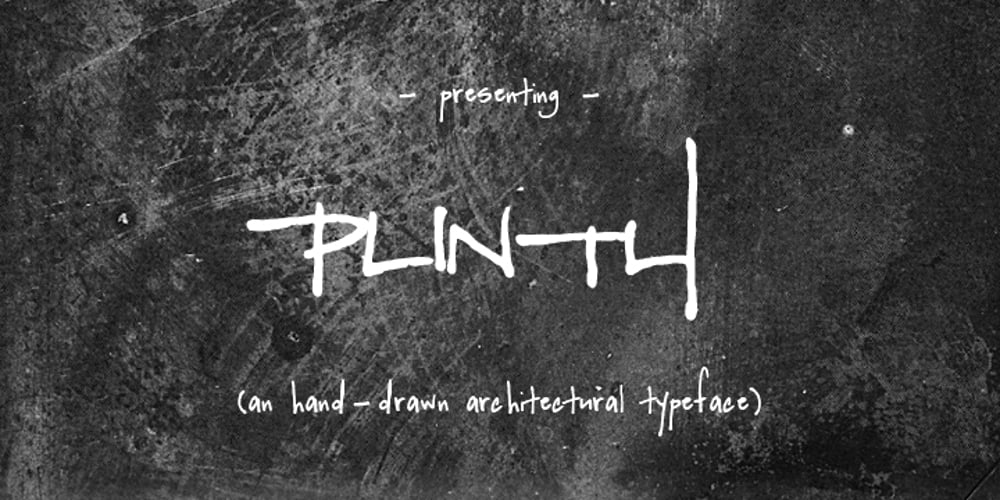
Plinth Font Family was designed by Jessica McCarty and published by Magpie Paper Works. Plinth contains 1 styles and family package options. Hand-drawn by an architectural renderer’s daughter, Plinth is an craftsman-inspired font that leaves a strong and lasting impression. Both capital and lowercase letters have been designed for impacting display, but are also easily read in large blocks of text. Plinth includes multi-language support as well as a variety of OpenType features including decorative alternate caps, double-letter ligatures, complete fractions, currency figures, and 4 stylistic sets. Set One replaces commonly used titles (Mr., Mrs., Miss, Ms., and Dr.) with complementary hand-drawn versions. Set Two replaces 8 commonly used prepositions (and, the, to, to the, or, of, for and at) with complementary wordforms. Set Three seats counting contractions (1st, 2nd, 3rd, etc.) in their proper superscript place. And Set Four provides a fancy alternate of both ampersand and asterisk. Plinth is perfect for the designer, architect or orderly list-maker in all of us.